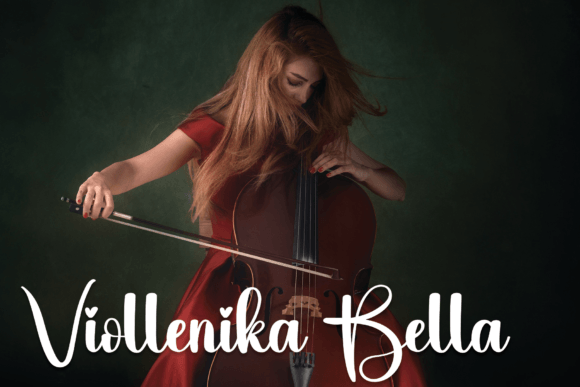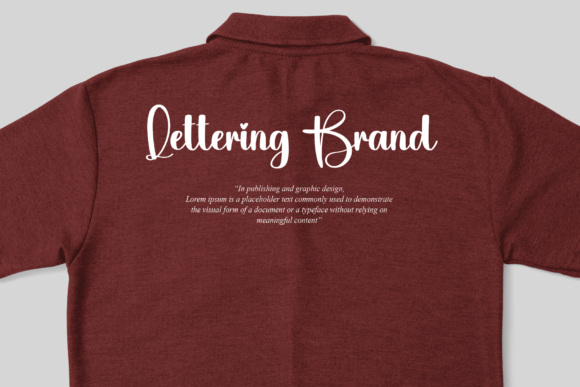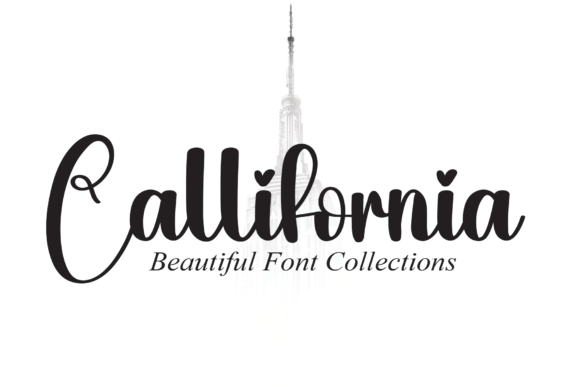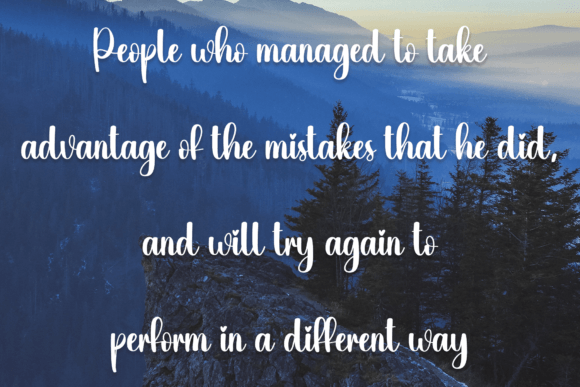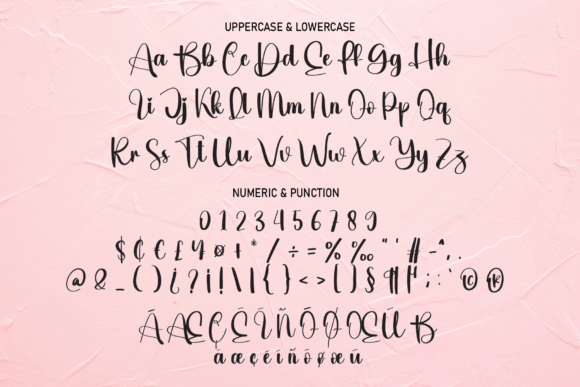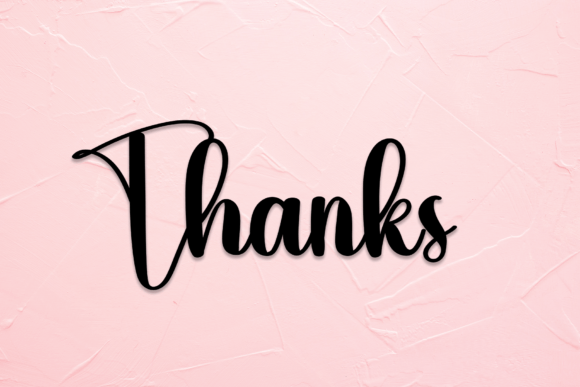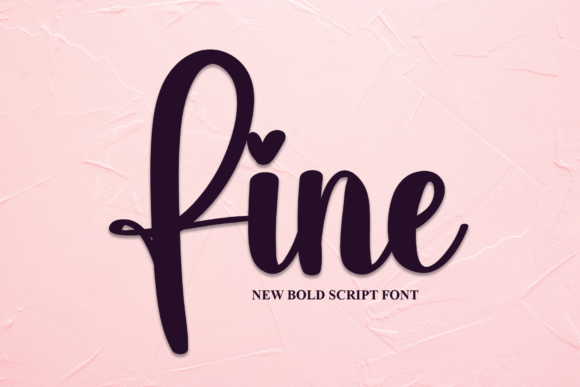
Introducing Fine Font: Elevate Your Designs with Modern Handwritten Elegance
In the world of typography, the right font can make all the difference in elevating your design from ordinary to extraordinary. For designers and crafters looking for a touch of modern elegance and personal touch, Fine Font is an exceptional choice. Fine is a modern handwritten font that brings a fresh and sophisticated look to any project. Its latest style letters are not only beautiful but also versatile, making it perfect for a wide range of applications.
What Makes Fine Font Stand Out?
Fine Font is characterized by its unique blend of modernity and elegance. Each letter is carefully crafted to provide a sense of fluidity and grace, making it stand out in the world of handwritten fonts. Here are a few key features that make Fine Font a valuable addition to your typography arsenal:
- Modern Handwritten Style: Fine Font boasts a contemporary handwritten style that is both trendy and timeless. Its letters are designed to give your projects a personal and approachable feel without compromising on elegance.
- Versatility: Whether you’re working on wall displays, wedding invitations, social media post logos, advertisements, product packaging, product designs, labels, photography, watermarks, or any project requiring handwritten typography, Fine Font adapts seamlessly.
- Legibility: Despite its elegant and cursive nature, Fine Font maintains high legibility, making it suitable for both headings and body text.
- Unique Character: The font’s unique character ensures that your designs stand out. It adds a touch of sophistication and personality that can be hard to achieve with more traditional fonts.
Applications of Fine Font
The versatility of Fine Font makes it an excellent choice for various design projects. Here are some of the areas where Fine Font can make a significant impact:
- Wedding Invitations: Add a touch of romance and elegance to your wedding invitations. Fine Font’s beautiful script is perfect for conveying the joy and sophistication of your special day.
- Social Media Graphics: Elevate your social media presence with stylish logos and post designs. Fine Font can help you create engaging and visually appealing content that stands out.
- Product Packaging: Make your product packaging more attractive and distinctive with Fine Font. It’s an excellent way to add a personal touch and make your products more memorable.
- Advertising: Use Fine Font in your advertisements to add a level of sophistication and elegance. It’s perfect for creating eye-catching headlines and compelling copy.
- Stationery and Invitations: From formal invitations to personal stationery, Fine Font brings a level of class and elegance that’s hard to match.
Tips for Using Fine Font Effectively
To make the most of Fine Font, consider the following tips:
- Pair with Complementary Fonts: For maximum effect, pair Fine Font with simpler fonts to create contrast and make your text more readable.
- Use Appropriate Colors: Choose colors that complement the elegance of Fine Font. Soft pastels, rich tones, and classic black and white can work exceptionally well.
- Experiment with Sizes: Don’t be afraid to experiment with different font sizes. Fine Font’s versatility means it can look great in both large headings and smaller body text.
- Consider Your Audience: Ensure that Fine Font aligns with the tone and style of your project and appeals to your target audience.
Fine Font is a modern handwritten font that offers a unique blend of elegance, versatility, and personality. Whether you’re a designer working on a client’s project or a crafter looking for the perfect typography for your handmade goods, Fine Font is an excellent choice. Its wide range of applications, from digital designs to print materials, makes it a valuable addition to any creative toolkit. By incorporating Fine Font into your projects, you can add a touch of sophistication and personal flair that sets your work apart.